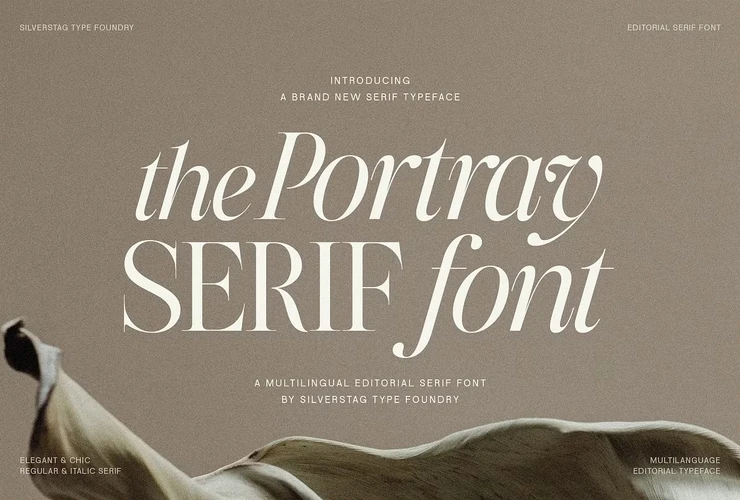
The Portray: A Serif Typeface That Redefines Elegance
The Portray is a sophisticated serif typeface that perfectly blends timeless elegance with contemporary aesthetics. With its high-contrast strokes, graceful curves, and impeccable attention to detail, The Portray elevates any design, whether it’s editorial content, branding, or web design. The typeface is designed for the modern aesthete who values both style and substance in their typography choices.
Why Choose The Portray?
Effortless Elegance: The Portray’s clean lines and well-balanced proportions deliver a classic charm ideal for various creative applications. Whether it’s magazine layouts or website headers, this font adds a touch of refinement to any project.
Chic Ligatures: With an array of thoughtfully crafted ligatures, The Portray offers unique letter combinations that add character and flair to your designs.
Advanced OpenType Features: The Portray provides advanced typography control with OpenType features, including stylistic alternates and elegant ligatures that enhance design versatility.
Multilingual Support: With support for over 90 languages, The Portray ensures that your message resonates with a global audience, making it a truly versatile choice for international brands and creatives.
True Italics: Unlike simple slanted versions, The Portray’s italics are uniquely designed to complement the upright characters, offering a seamless flow and adding a dynamic feel to your typography.
Perfect for Various Applications
Editorial Design: Whether it’s magazines, newspapers, or books, The Portray’s readability and classic beauty make it an excellent choice for long-form text, ensuring an enjoyable reading experience.
Branding & Logos: The Portray’s timeless appeal is ideal for creating a sophisticated brand identity that leaves a lasting impression.
Web Design: The font’s high contrast and clean lines ensure optimal legibility across different screen sizes, enhancing user experience.
Packaging & Print: From luxury product packaging to premium stationery, The Portray’s elegance is the finishing touch that elevates your designs.
Invitations & Stationery: Whether it’s wedding invites or greeting cards, The Portray’s graceful letterforms add a sense of occasion and elegance to any printed material.